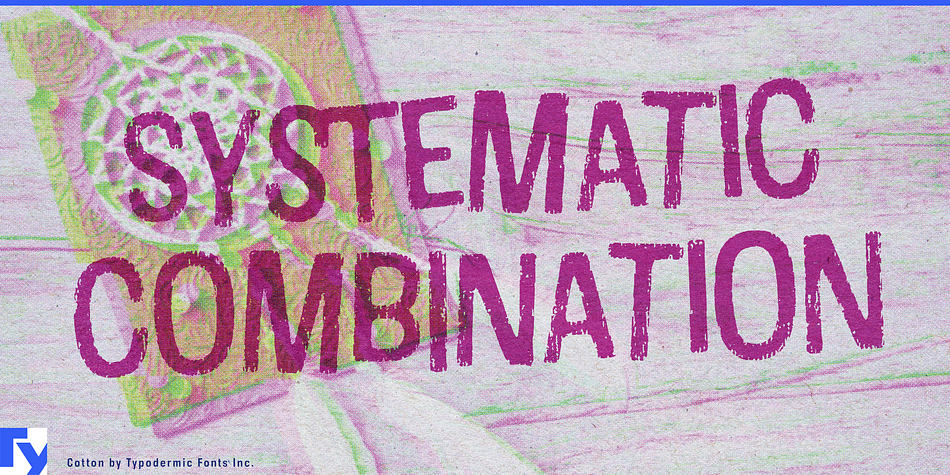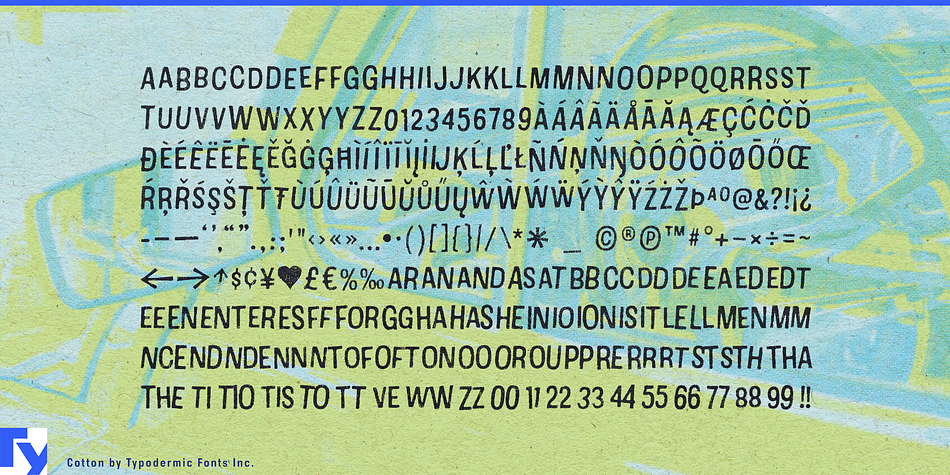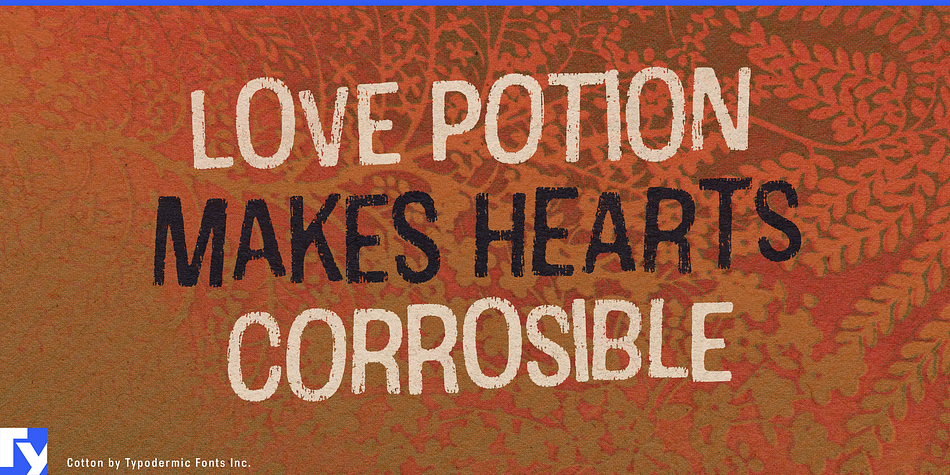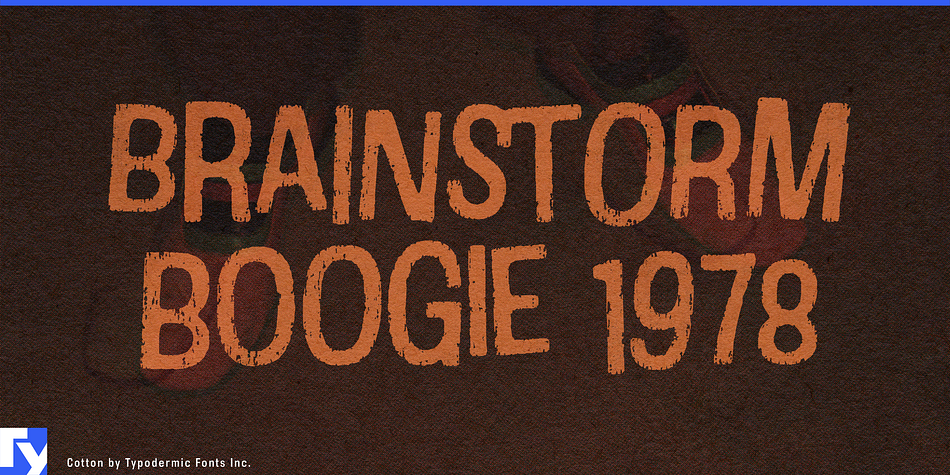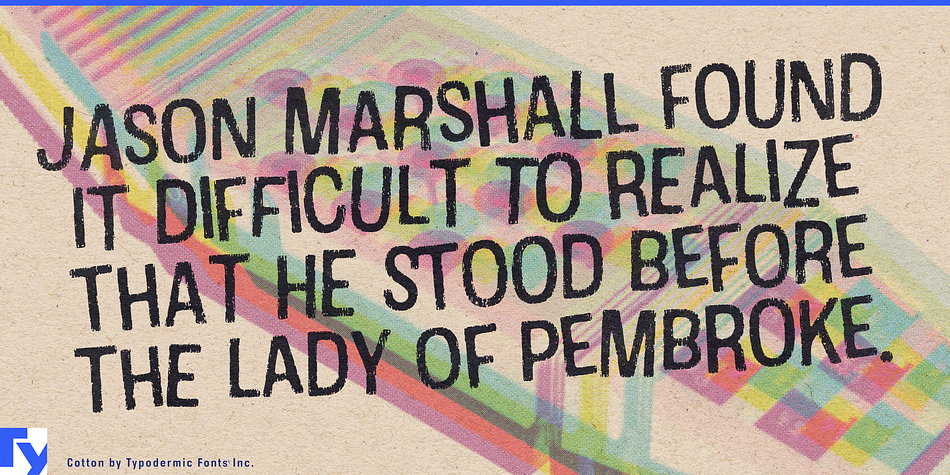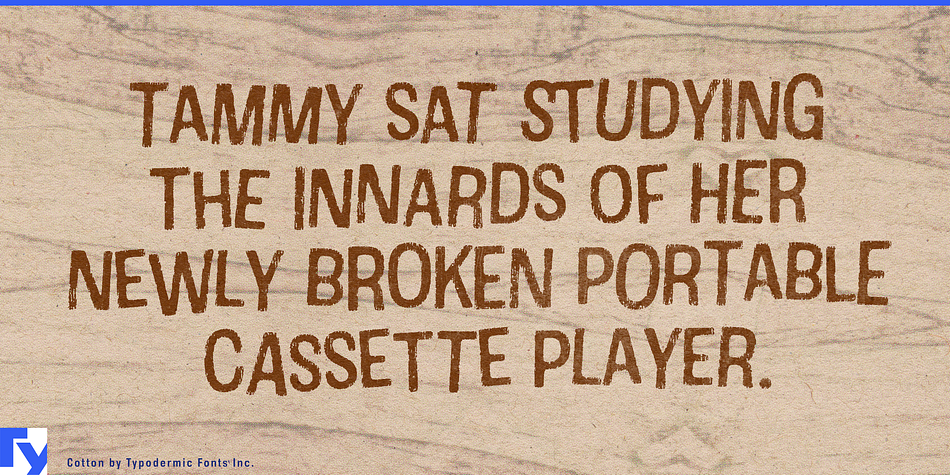
Cotton is a grunge and kids font published by Typodermic Fonts Inc.
Cotton is a mid-twentieth century style casual sans with a vintage t-shirt texture. In OpenType savvy applications, letter pair autoligs help break up the monotony of obviously repeating letters.